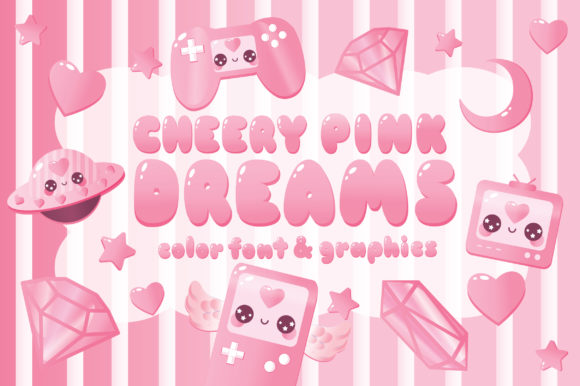
Journey into a realm of boundless creativity with Cheery Pink Dreams Font, a whimsical and vibrant font family crafted by LIVELY LISHA. Let your imagination soar as you explore this extraordinary collection, brimming with charm, enthusiasm, and endless possibilities.
Cheery Pink Dreams Font is designed to ignite your imagination and infuse your projects with an infectious sense of joy. Its playful and bubbly nature promises to make any creation pop with personality, whether you're crafting eye-catching designs, captivating presentations, or personalizing heartfelt messages.
This remarkable font family is accompanied by an array of captivating extras, an artist's palette of creative embellishments that will elevate your projects to new heights. Unleash your inner artist and let your creativity flow as you incorporate these enchanting elements into your designs, transforming them into masterpieces that radiate originality and charm.